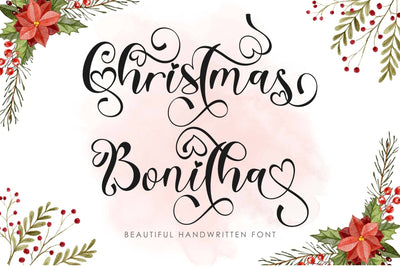
Christmas Bonitha
"Christmas Bonitha" is a beautiful and elegant handwritten font. It comes with capital letters, lowercase letters, numbers, punctuation, ligatures, and multilingual support. It is suitable for weddings, Christmas, fall, Halloween, invitations, posters, banners, branding, stickers, and more.